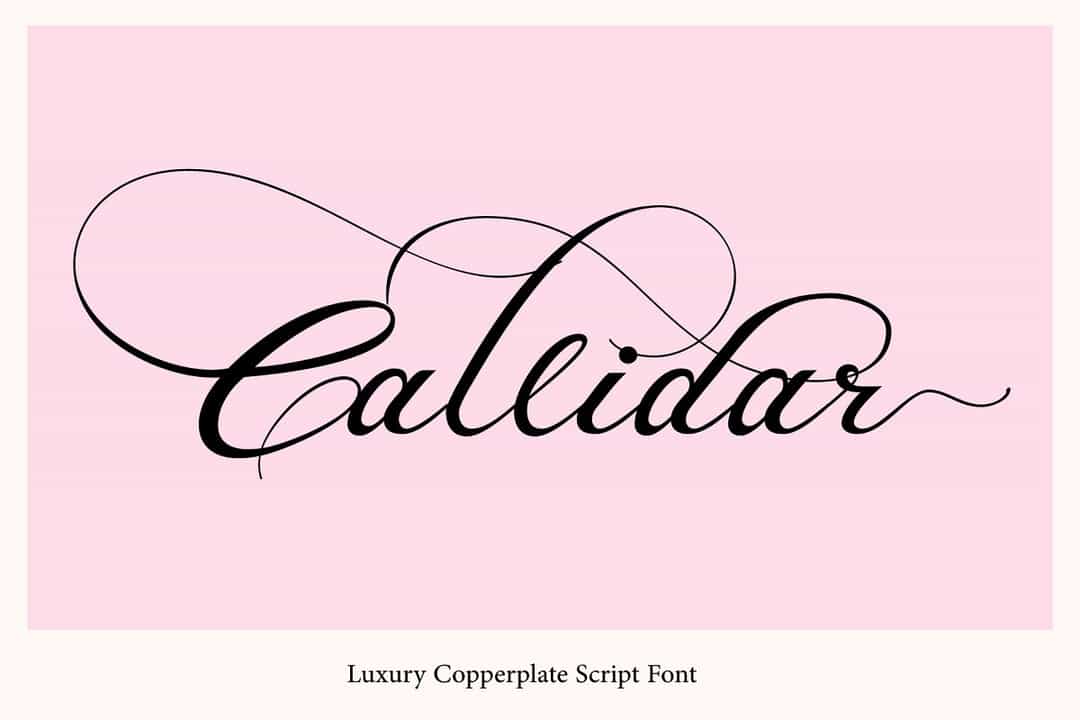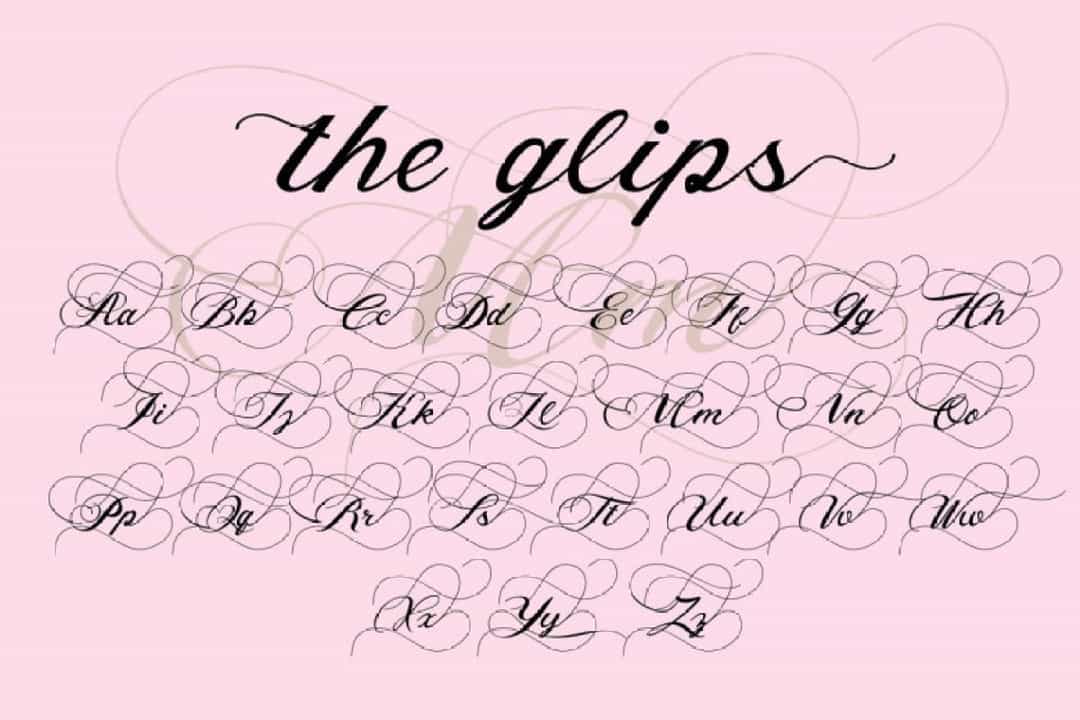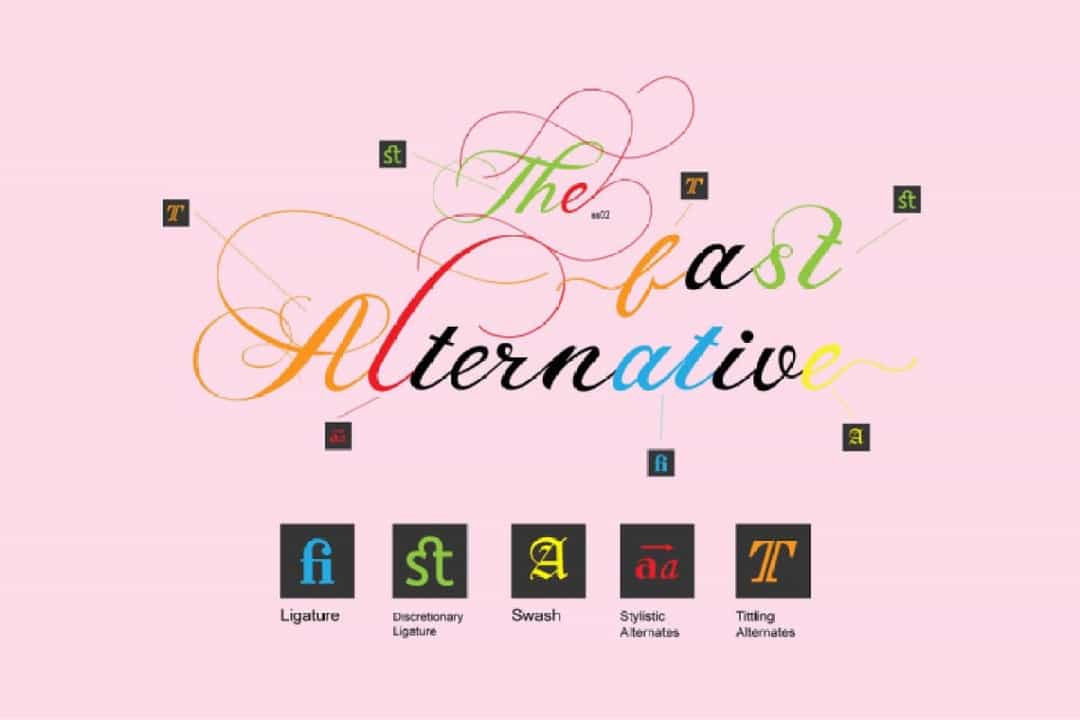
Callidar is a stylish calligraphy font. Ideal for creating elegant, stylish statements – or just giving a bit of class to your designs. Callidar is a good choice for many types of projects like logos & branding, invitation, stationery, wedding designs, social media posts, advertisements, product packaging and design labeling.